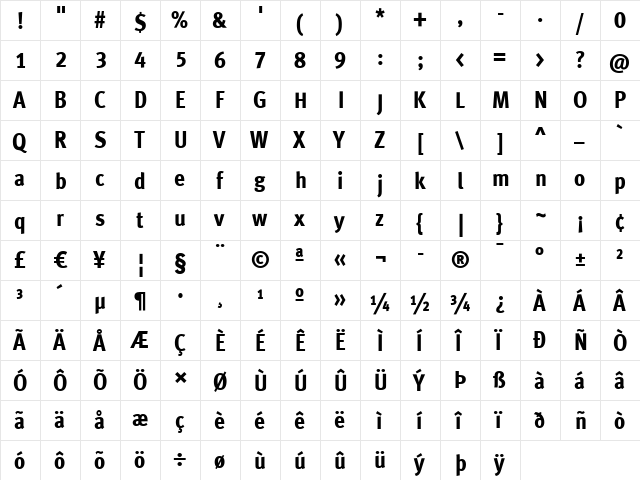
MetaCond ExtraBold
| Foundry | Erik Spiekermann, Ole Schaefer, . Published by FontShop International for FontFont Release MetaCondensed is a trademark of FSI Fonts and Software GmbH |
Design Context for MetaCond Typeface
MetaCond is a composed and adaptable typeface that performs quietly and consistently across a wide range of design contexts. The heavy weight commands attention and anchors typographic hierarchies. Its narrow stance lets it pack a punch even in space-constrained designs.